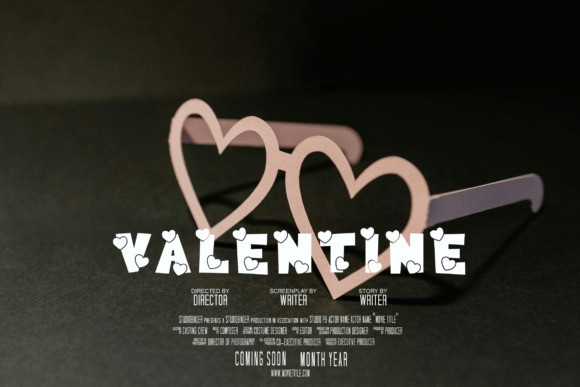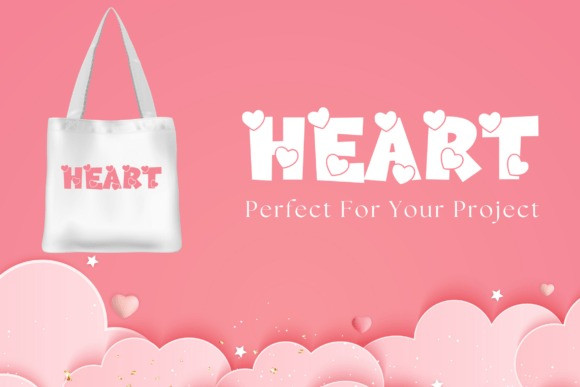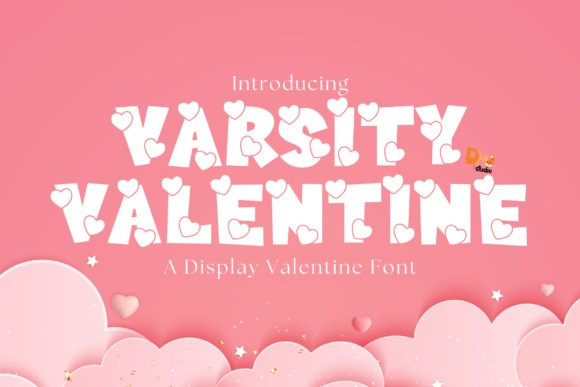
Varsity Valentine Font
Varsity Valentine Font skillfully intertwines the timeless allure of classic varsity letters with a whimsical romantic twist. Flirting effortlessly with sports-infused projects, Valentine’s Day creations or chic branding ventures, it’s a harmonious dance of power and charm at each curve and stroke. Varsity Valentine is the perfect complement to your unique greeting cards, apparel designs, or stand-out social media visuals, offering a distinctive charm that immediately seizes attention.